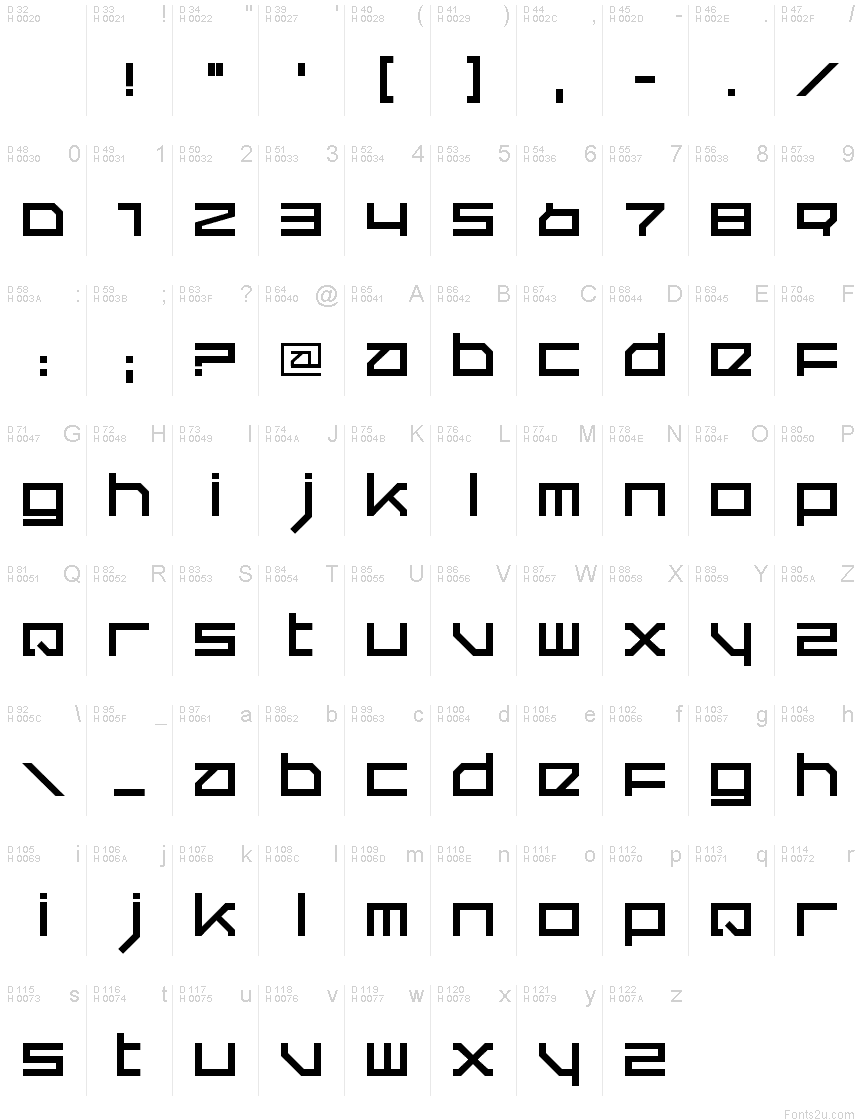
Quer Regular
Quer Regular by Onezero is a free futuristic display font with a hard-edged, modular rhythm and a distinctly early-digital attitude. The letters are built from blocky right angles and clipped diagonals, so the caps feel cropped, mechanical, and slightly enigmatic rather than sleek or streamlined.
That makes it a natural fit for sci-fi posters, game logos, album sleeves, title cards, and short branding systems where a free font can carry a strong tech mood in just a few letters. It works best in brief settings - headlines, cover lines, monograms, and interface-flavored wordmarks - because the squared cuts and missing corners give every word a coded, signal-like presence.